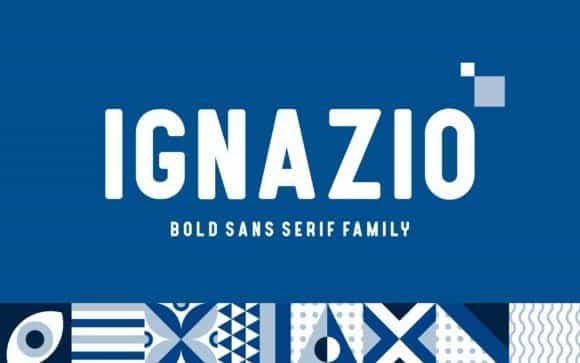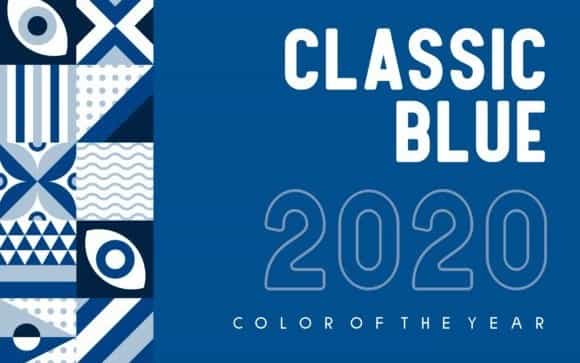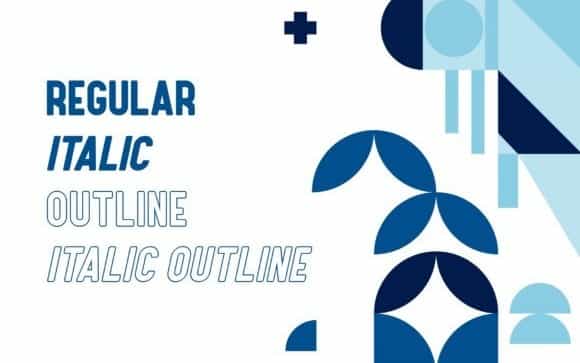
Ignazio is a bold sans serif font family with contemporary elements. The combination of hard lines and smooth curves gives them a dynamic look so that they can stand by themselves. Ignazio includes all-caps fonts.